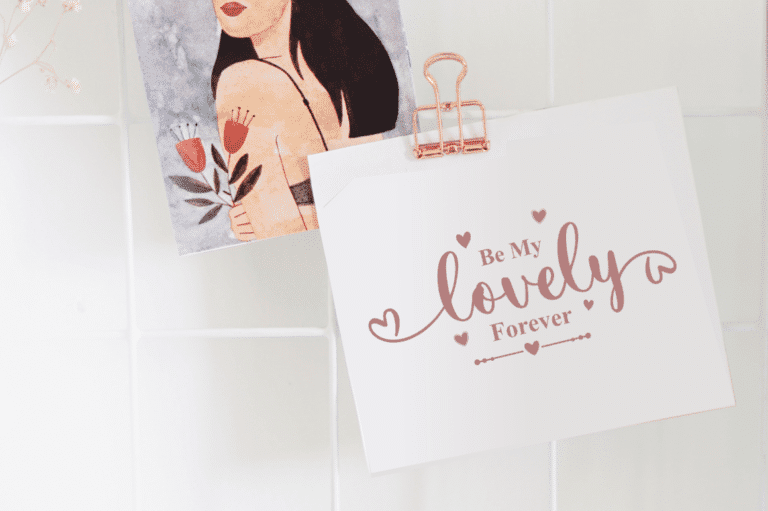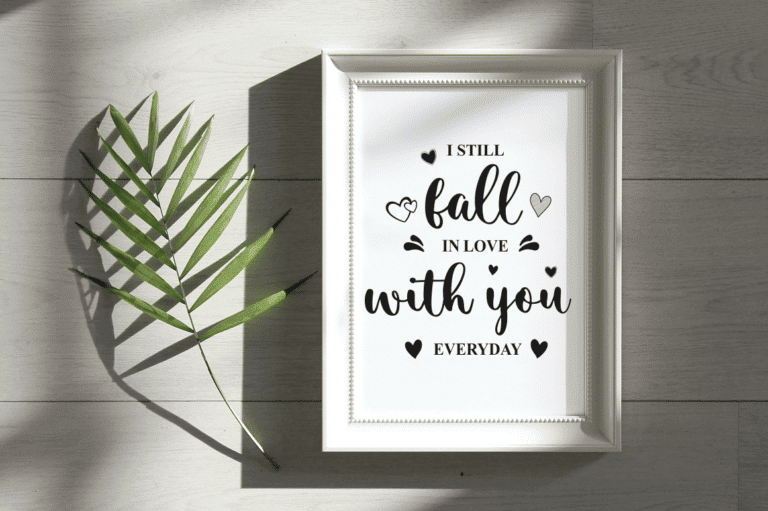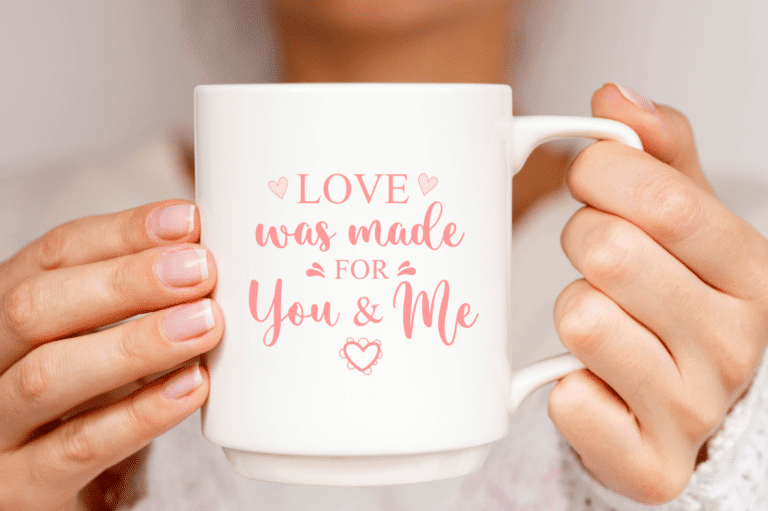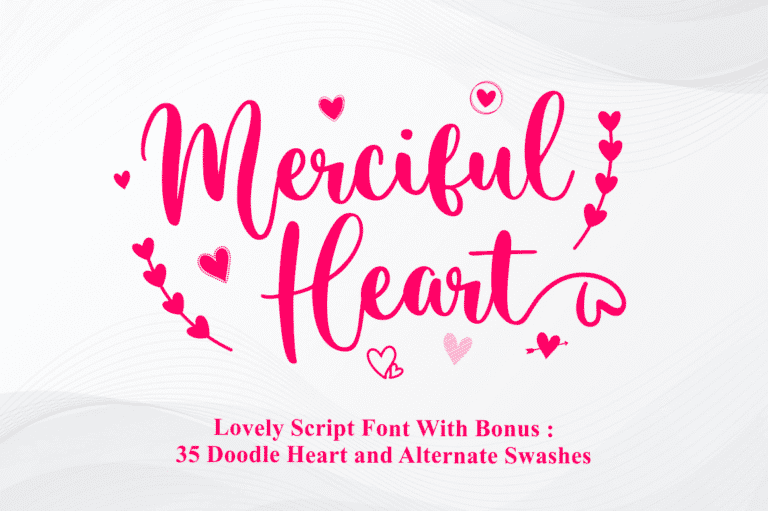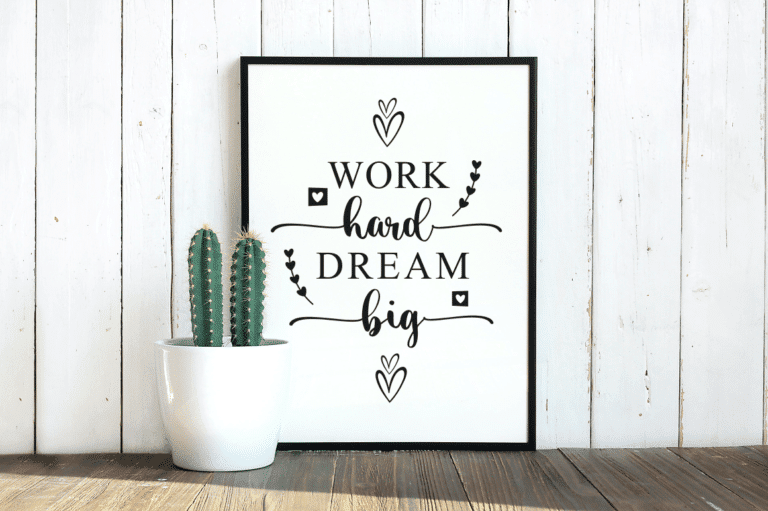
Merciful Heart Font
Merciful Heart – A lovely Calligraphy Font with lovely alternate swashes and a doodle heart bonus. I made this font especially for you craft designer, this font will be perfect for adding a lovely touch to your design, and with a pretty good thickness, this font will be great for those of you who use Cricut or Silhouette.